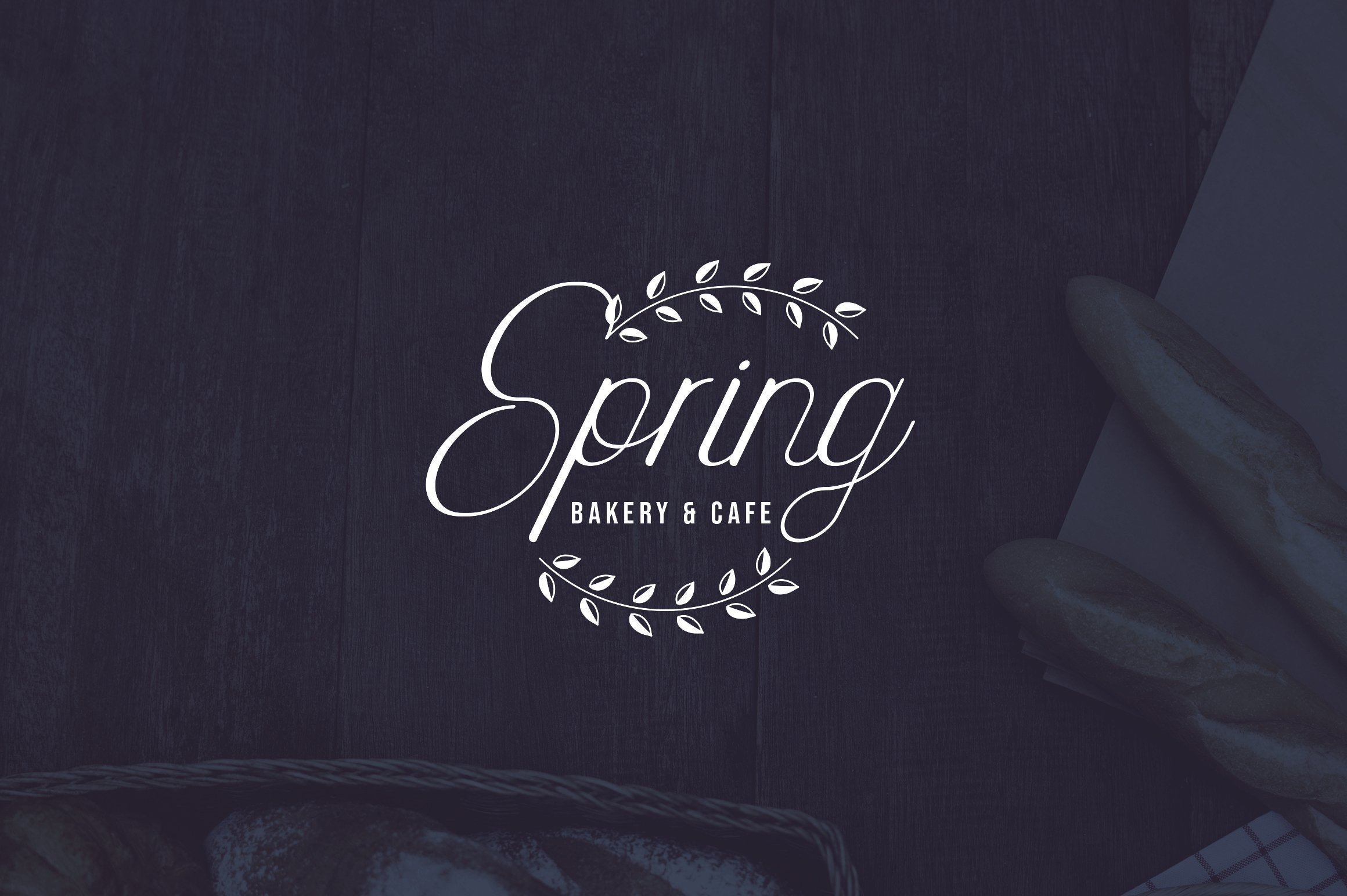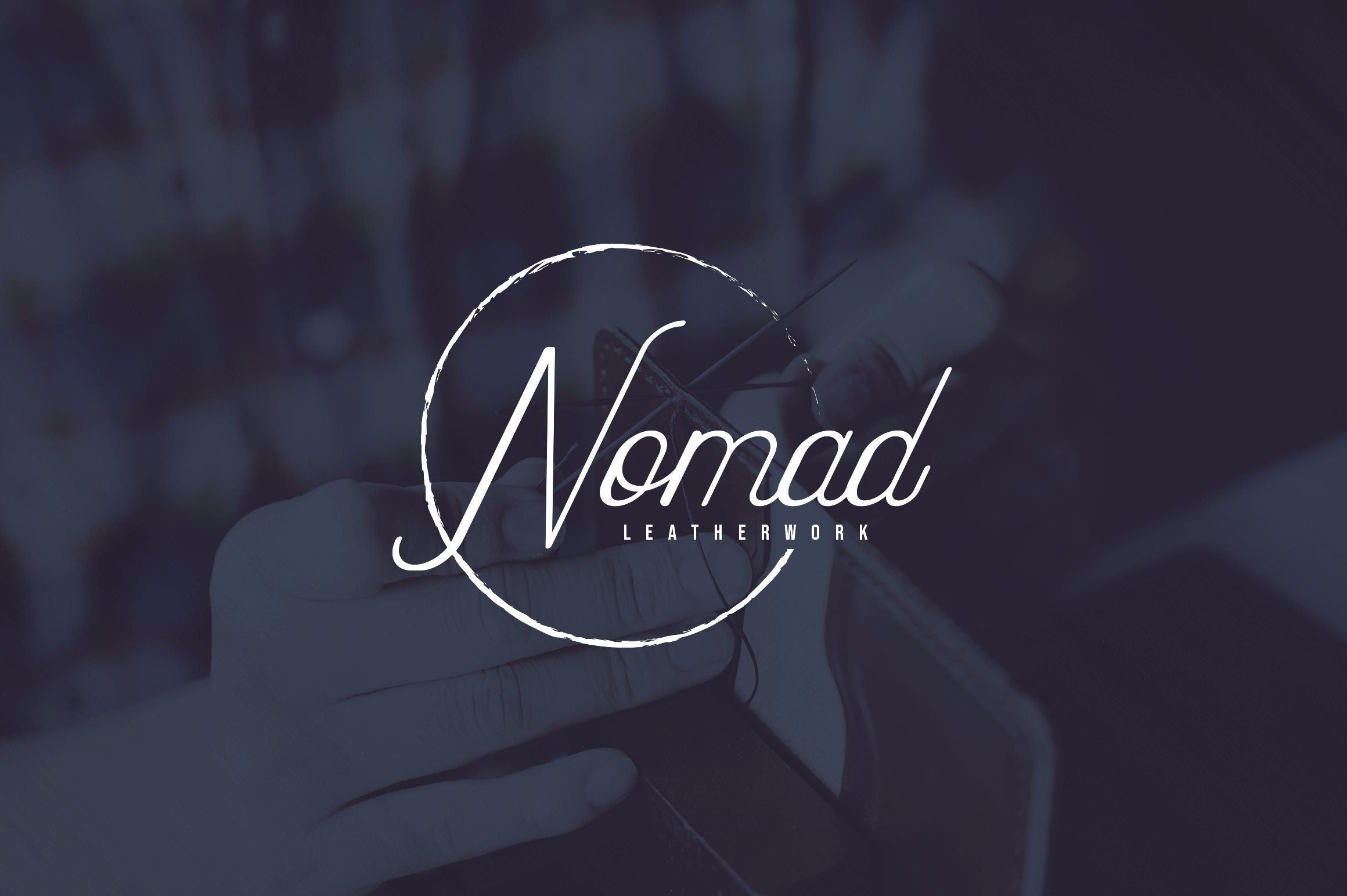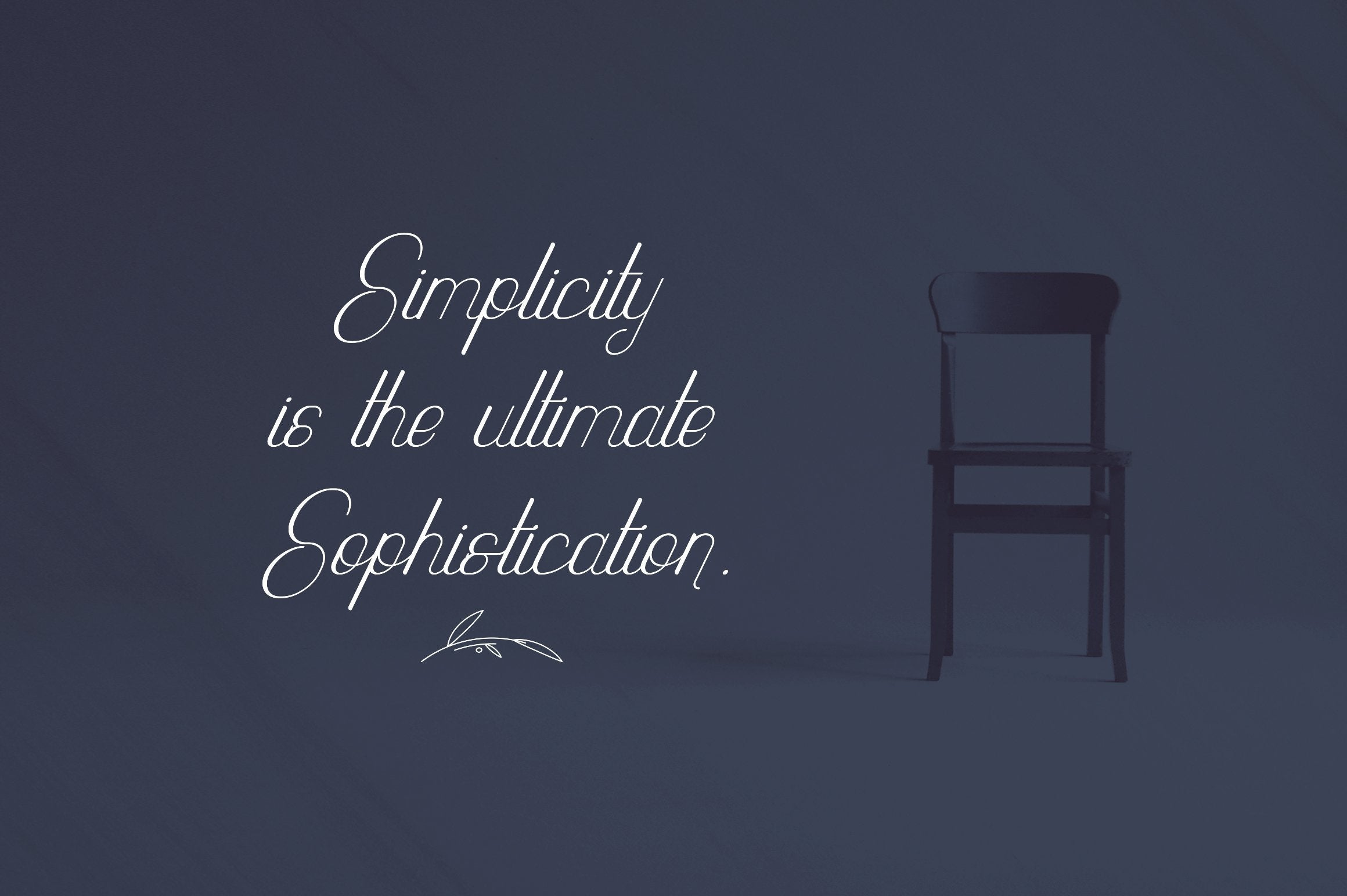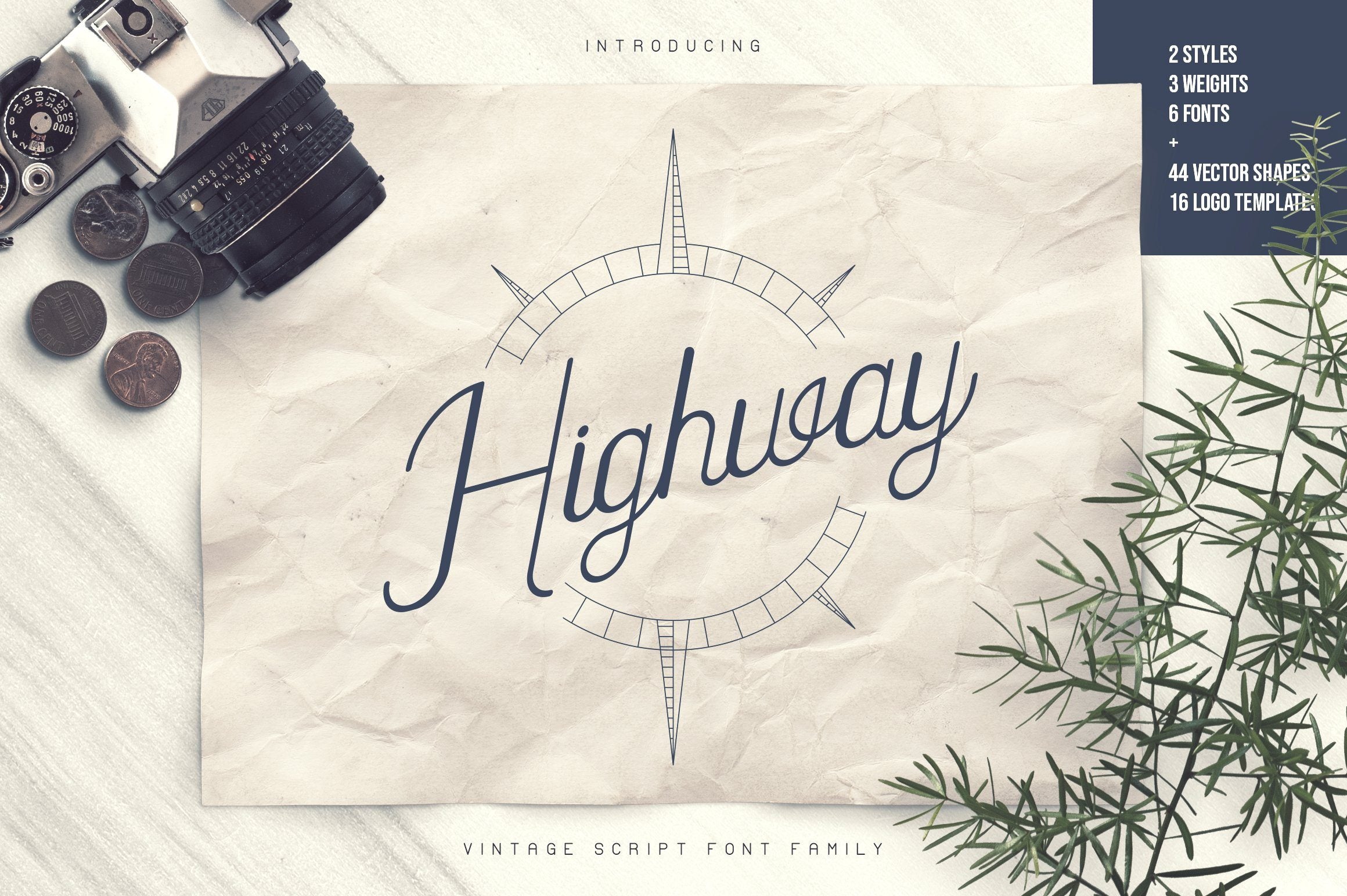
About Highway – Vintage font family+Extras
Introducing Highway vintage script font family Highway is elegant, clean font family with 6 font styles, 44 vector elements, 16 premade logo templates and multilingual support. It’s a very versatile font that works great in large and small sizes. Highway is perfect for branding projects, home-ware designs, product packaging, magazine headers – or simply as a stylish text overlay to any background image. Uppercase,lowercase,numeral,punctuation & Symbol Multilingual Light Regular Bold Light Italic Italic Bold Italic 44 Vector elements 16 Premade logo templates Feel free to contact me if you have any questions! Mock ups and backgrounds used are not included! Thank you! Enjoy!